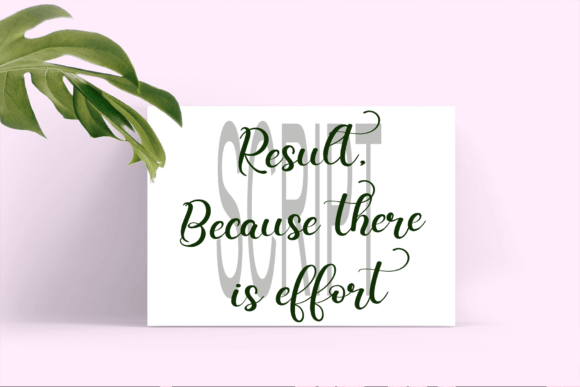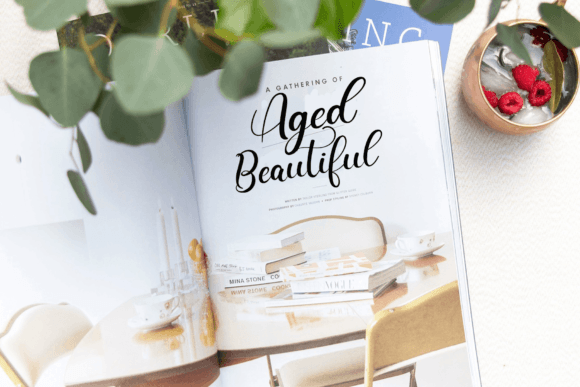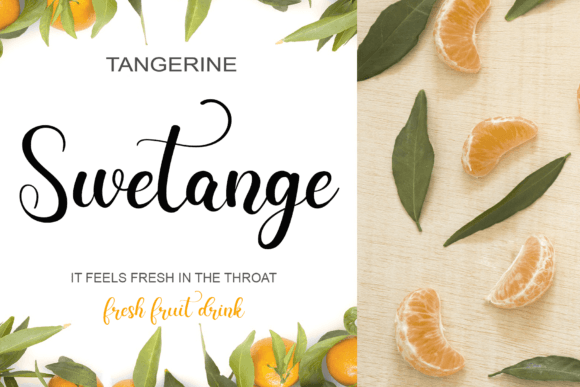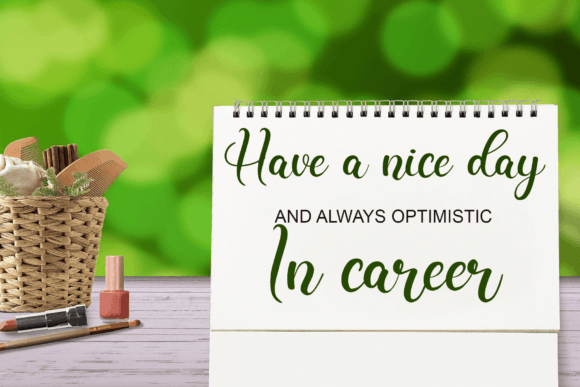
Fantasy Font
About Fantasy Font
“Fantasy” is a sophisticated handwritten font designed to seamlessly blend contemporary aesthetics with the timeless elegance of classic calligraphy. With impeccable form and a balanced, varied style, this font emerges as a versatile typeface, poised to elevate the beauty of a wide range of projects.
The font’s contemporary atmosphere is manifested through its sleek lines, capturing the essence of modern design trends. Simultaneously, the inspiration drawn from timeless classic calligraphy adds a touch of enduring grace and refinement, creating a harmonious fusion of the old and the new.
The meticulous design of “Fantasy” is evident in its balanced and varied characters. Each stroke is thoughtfully crafted to maintain equilibrium, ensuring a visually pleasing result. This balance allows the font to adapt effortlessly to diverse design applications, making it a versatile choice for creatives seeking a typeface that can effortlessly transition across different projects.
In the realm of creativity, fonts play a crucial role in conveying the intended message and evoking specific emotions. “Fantasy” steps into this role with grace, offering a canvas for designers to infuse their projects with a sense of sophistication and style. Whether used in branding, invitations, packaging, or other design endeavors, “Fantasy” aims to enhance the visual appeal, contributing to an elevated and refined aesthetic.
The font’s commitment to enhancing the beauty of projects is further reinforced by its adaptability. Whether applied to digital or print media, “Fantasy” stands ready to transform a simple piece of text into an artful expression. Its versatility allows it to seamlessly integrate into a myriad of contexts, from sleek and modern branding to timeless wedding invitations.
In conclusion, “Fantasy” emerges not just as a font but as a design companion, offering a perfect union of contemporary flair and timeless charm. With its impeccable form, balanced design, and varied style, this handwritten font invites designers to infuse their projects with a touch of sophistication, ensuring a lasting impression on anyone who encounters the visual narratives it helps create.